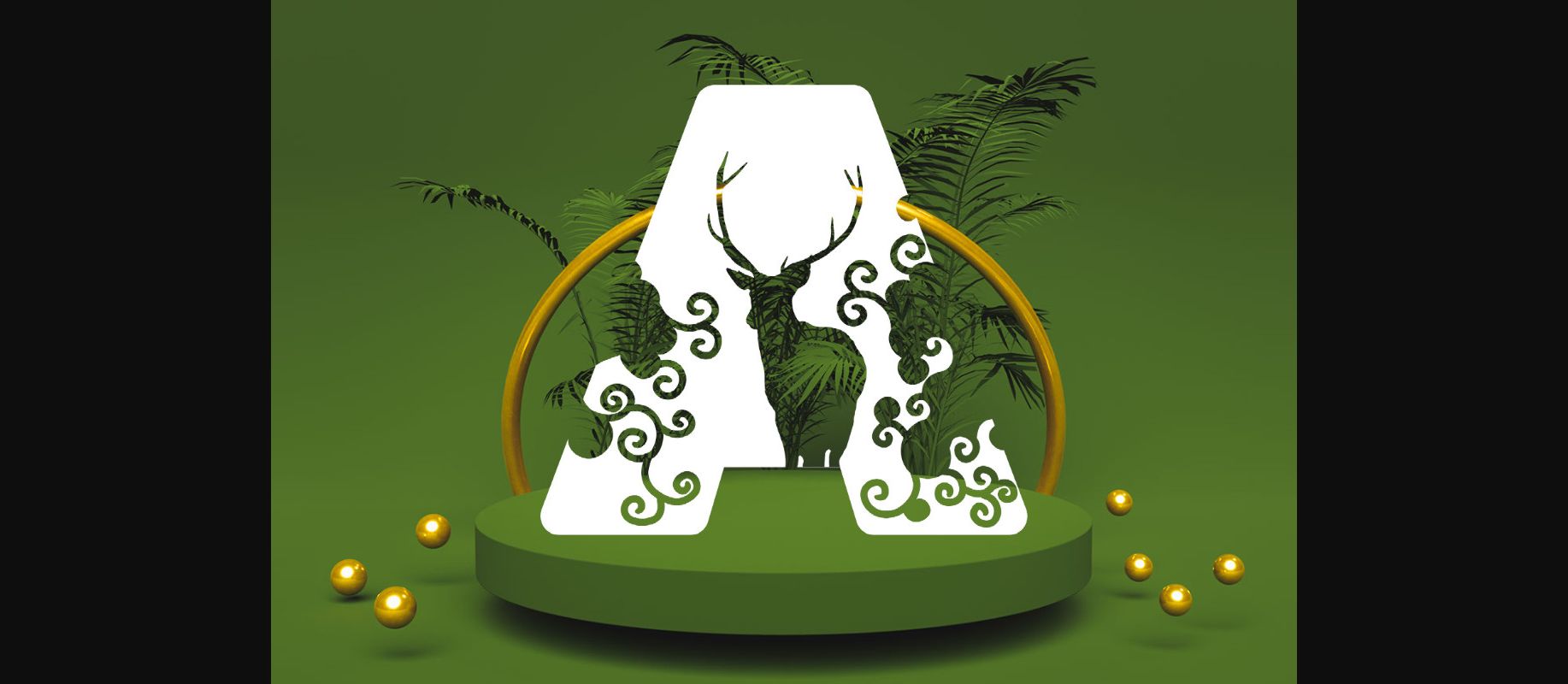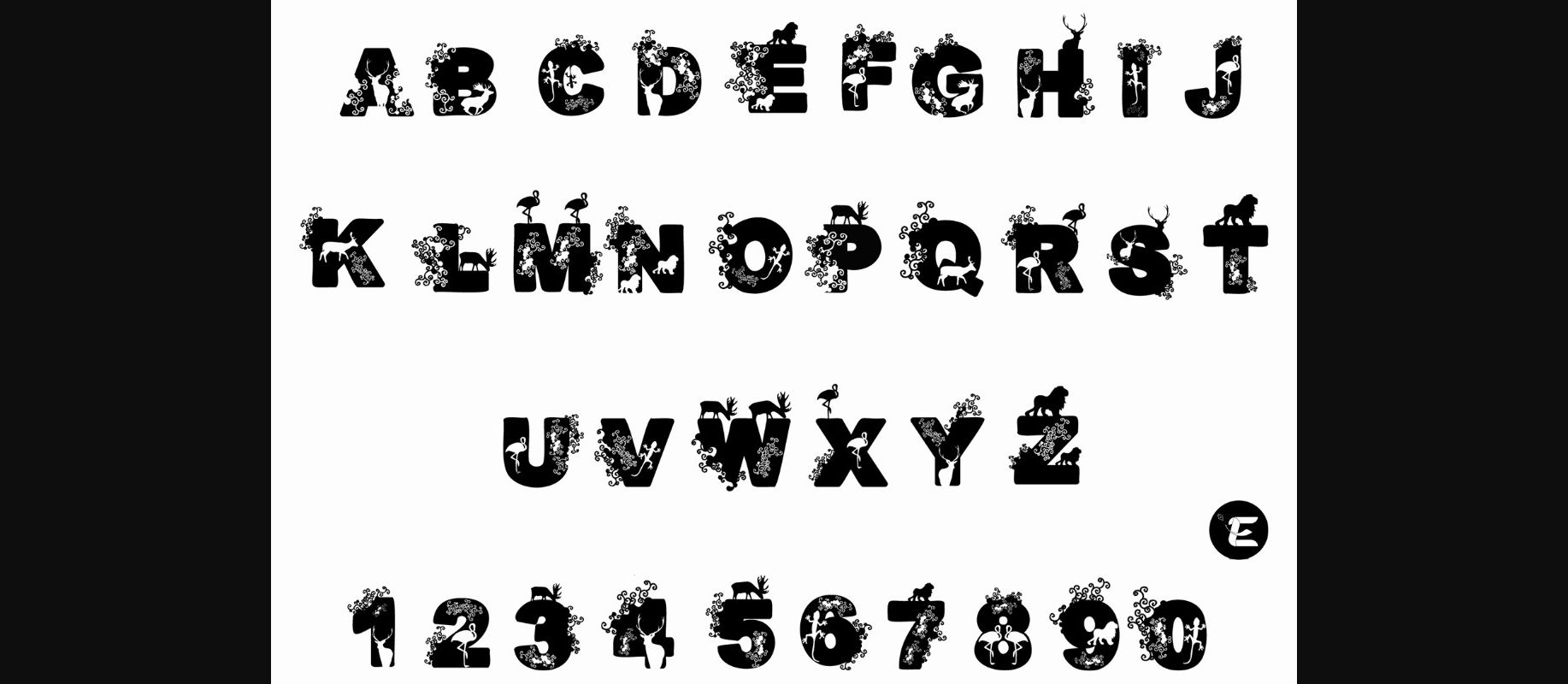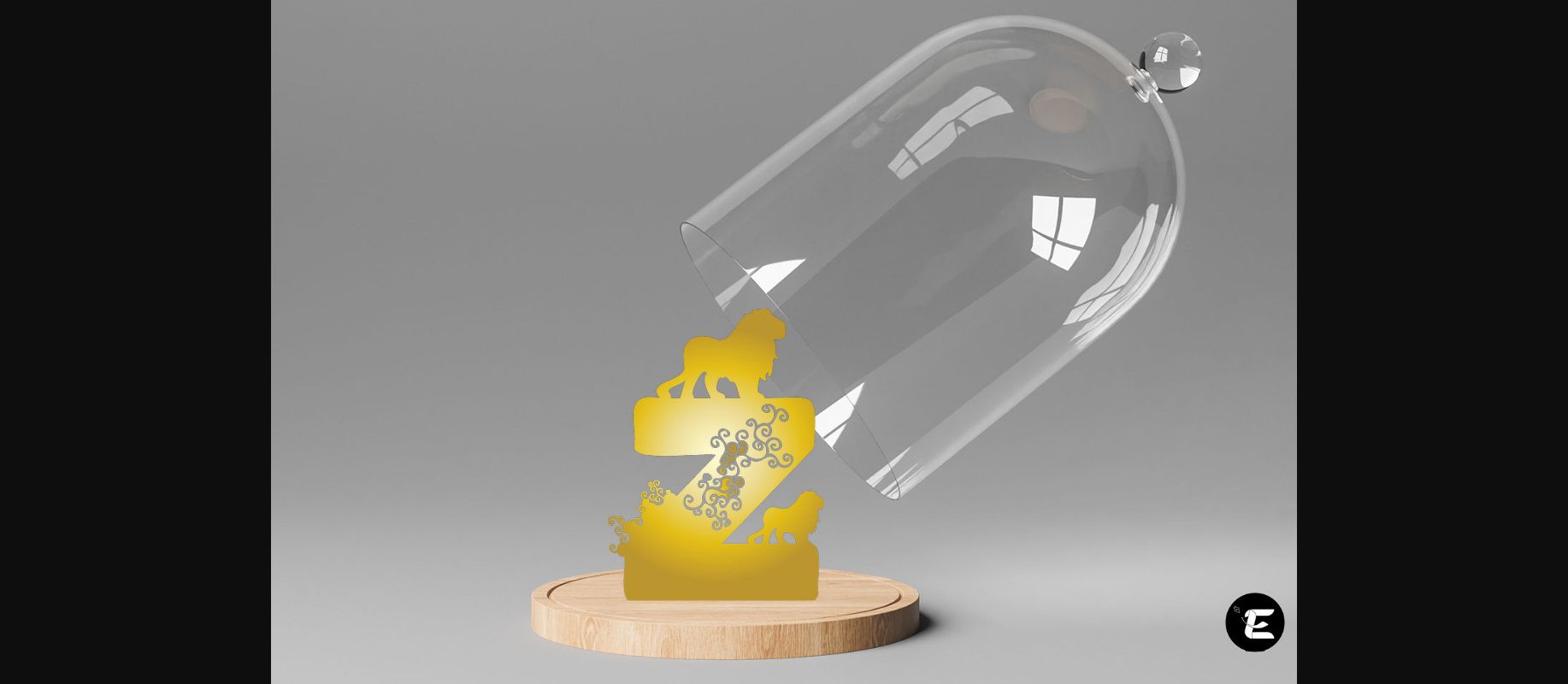
About Animal Font
Animal is a fun and uniquely designed decorative font. No matter the topic, this font will be an incredible asset to your fonts’ library, as it has the potential to elevate any creation.